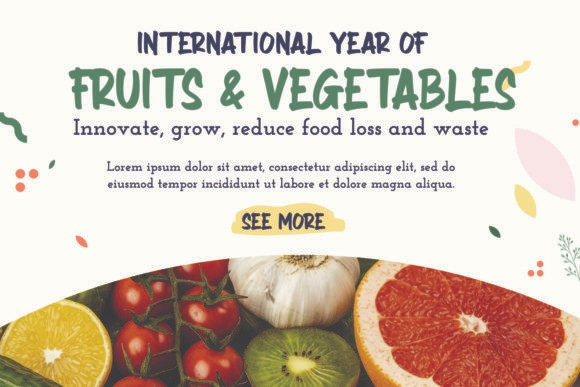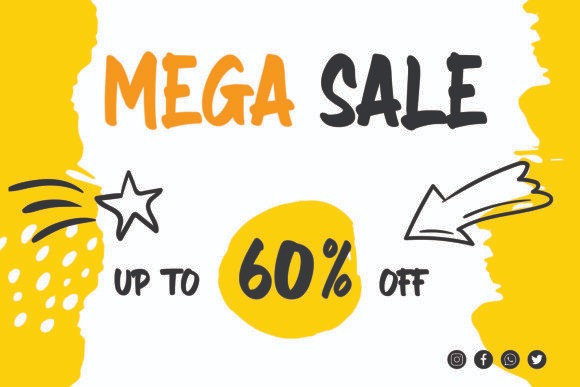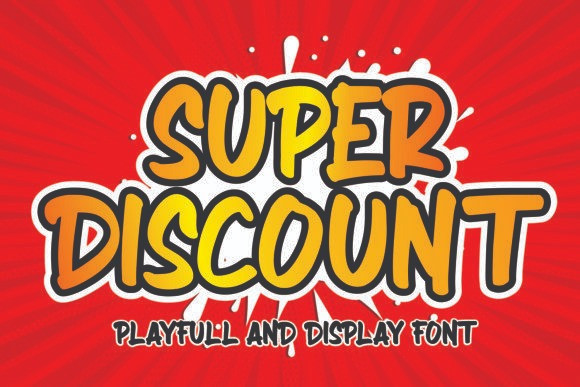
SUPER DISCOUNT Display Font
Super Discount is a modern display font that is readable, bold and stylish.
It is defined by smooth curves and is perfect for fashion branding or editorial designs.
Add it confidently to your projects, and you will love the results.
It’s perfect for t-shirt/ apparel, promotional materials, sports, music festival, quotes, special events or anything .